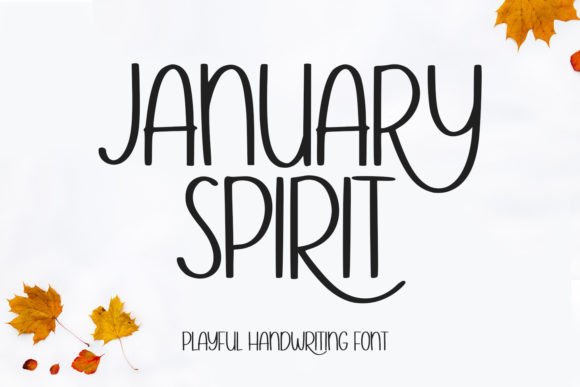
Discover January Spirit Font, a Delightful Handwriting Creation by Abodaniel!
Embark on a typographic adventure with January Spirit, a whimsical script font that dances across your digital canvas like a playful calligraphy brush. This charming font family, meticulously crafted to evoke the essence of handwritten joy, is perfect for adding a touch of whimsy to your creative projects.
With its cheerful curves and expressive strokes, January Spirit effortlessly captures the carefree spirit of youth and the nostalgic charm of handwritten notes. Its unique character set, featuring an array of playful ligatures and alternates, allows you to infuse your designs with a touch of individuality.
Whether you're designing t-shirts, crafting heartwarming quotes for social media, or creating personalized mugs and tote bags, January Spirit Font is your go-to font for spreading happiness and creativity. Its versatile style seamlessly blends with a variety of design aesthetics, from vintage-inspired to modern and minimalist.
Step into the world of January Spirit Font and let your imagination run wild. Its playful nature invites you to explore new horizons of design, creating projects that spark joy and captivate your audience. With January Spirit by your side, the possibilities are endless.
Unleash the magic of January Spirit Font today and transform your creative vision into a tangible masterpiece!